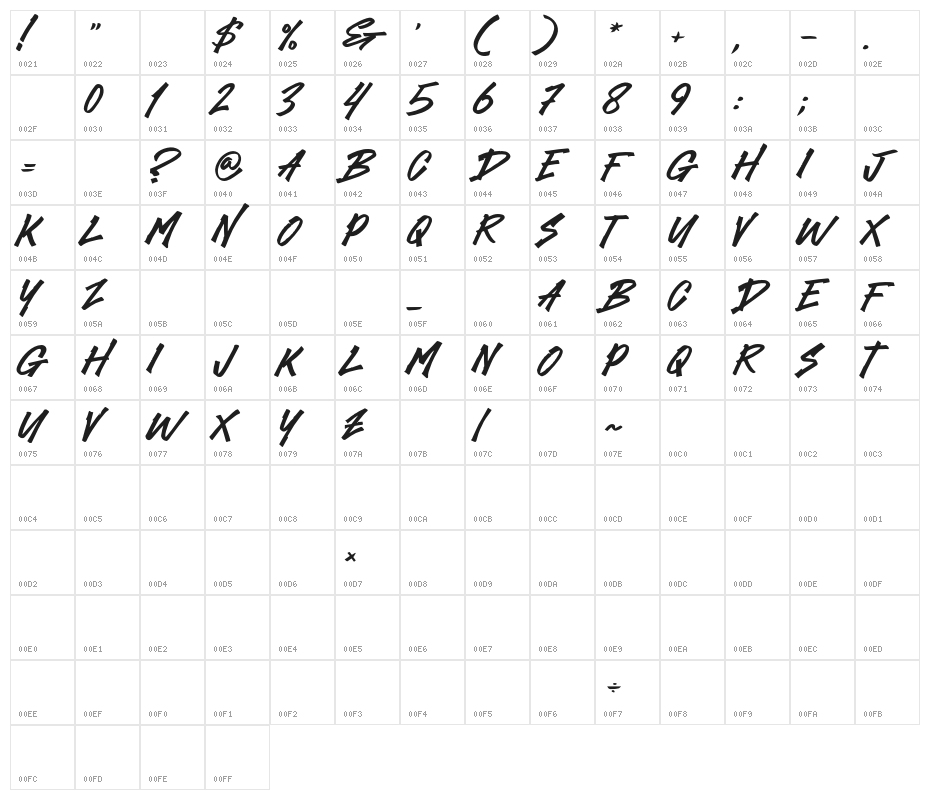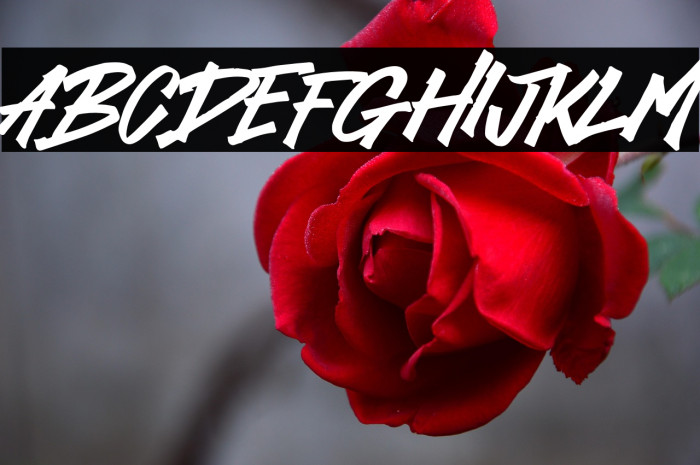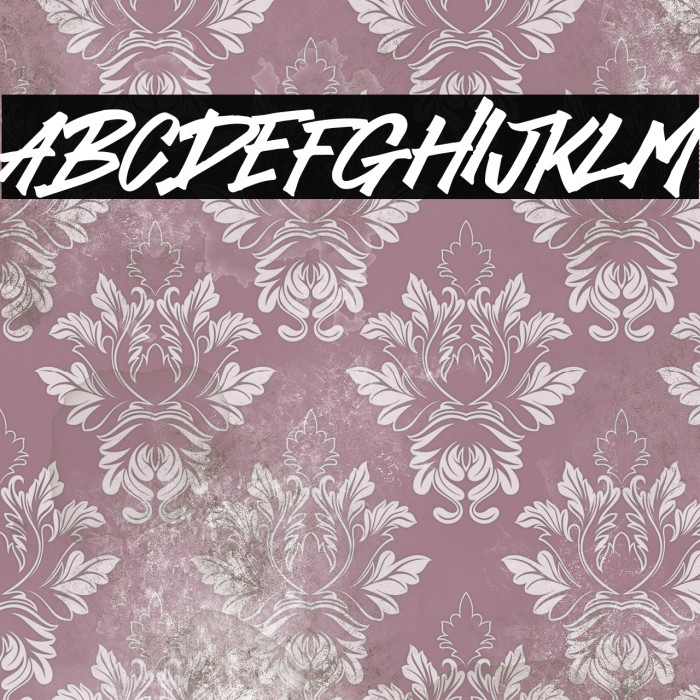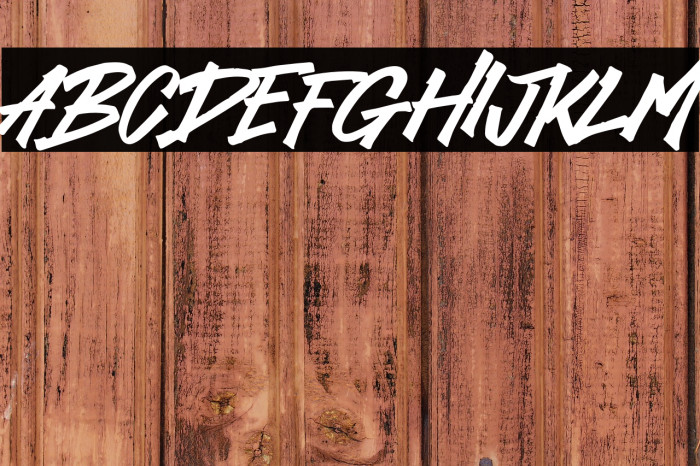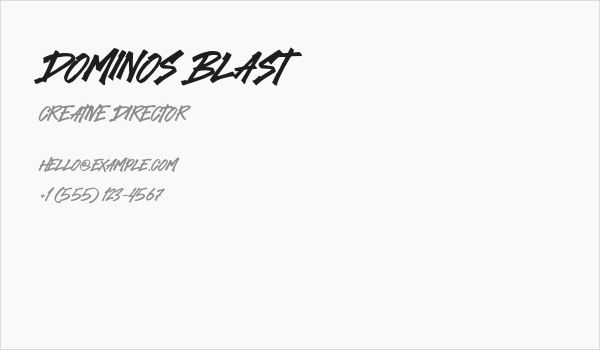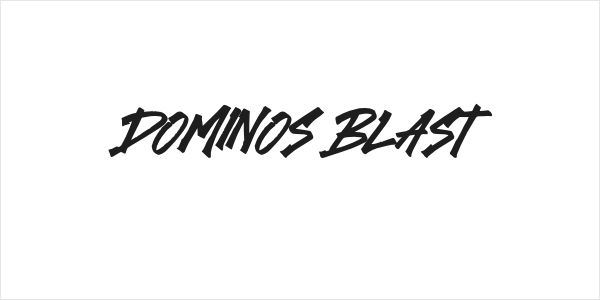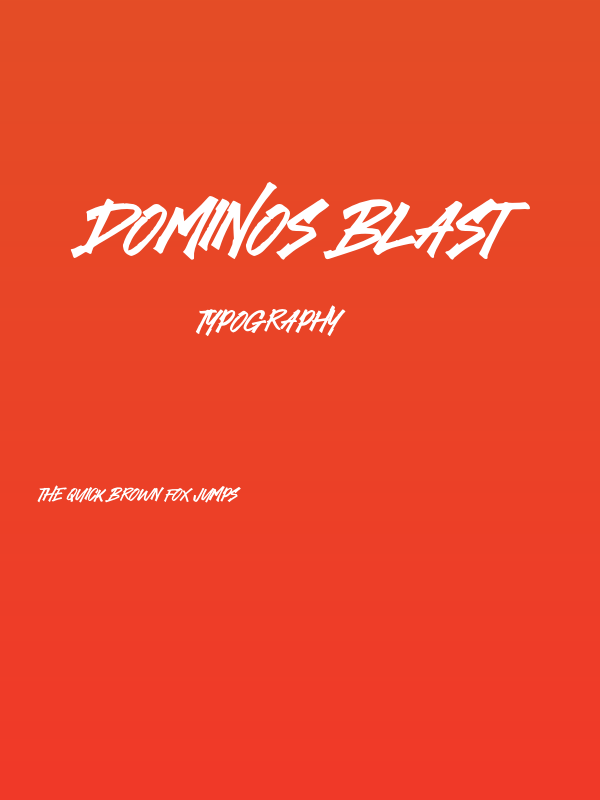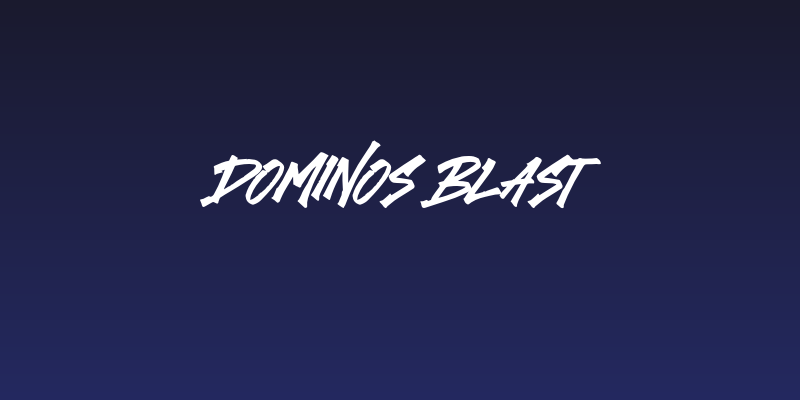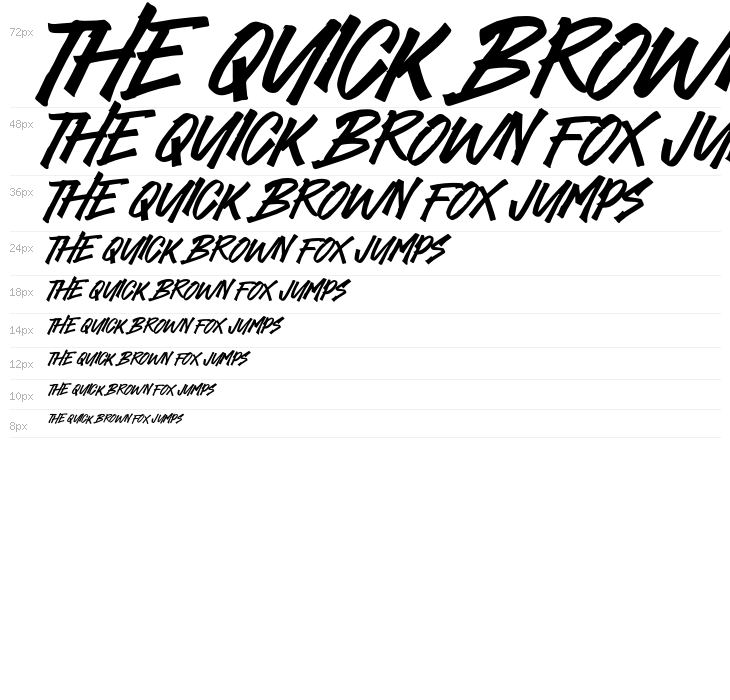
Dominos Blast Font
Dominos Blast Description
This font exudes a dynamic and energetic vibe with its bold, brush-like strokes. The letters are crafted with a sense of movement, giving them a lively and spontaneous appearance. The uppercase and lowercase letters maintain a consistent style, with sharp angles and smooth curves that create a sense of urgency and excitement. The numbers and special characters follow the same aesthetic, ensuring a cohesive look across all text elements. This font is perfect for projects that require a bold statement or a sense of action and adventure.
| Proposed Projects | Ideal for sports branding, action movie posters, graffiti art, and dynamic advertising campaigns. |